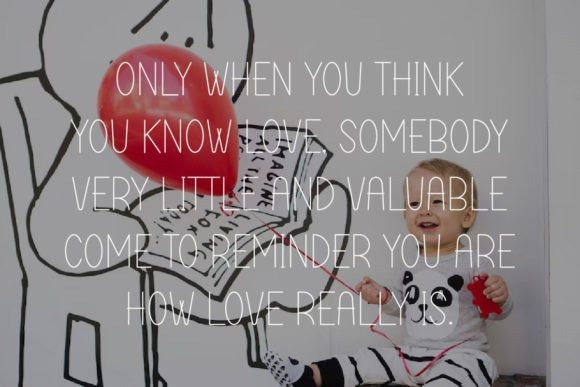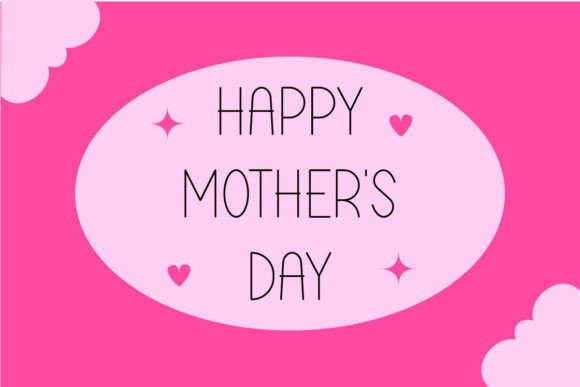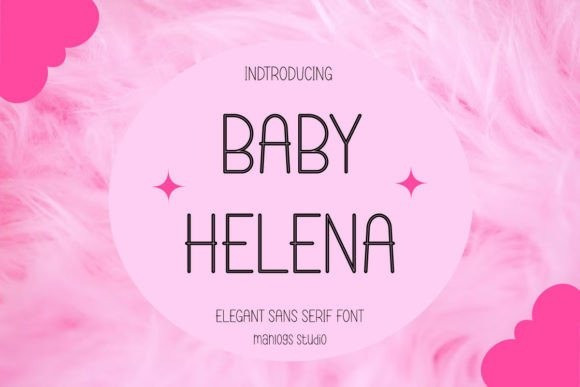
Baby Helena Font
Baby Helena Font, a charming Modern Sans Serif typeface designed to ignite your imagination. With its clean lines and modern aesthetic, this font adds a touch of whimsy to any project. Whether you’re designing logos, headlines, or invitations, Baby Helena Font is sure to transport your audience into a world of dreams and creativity.